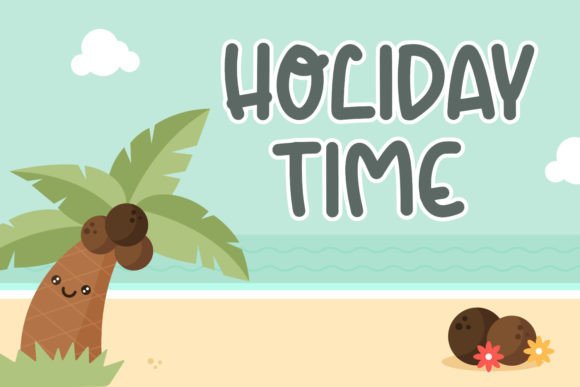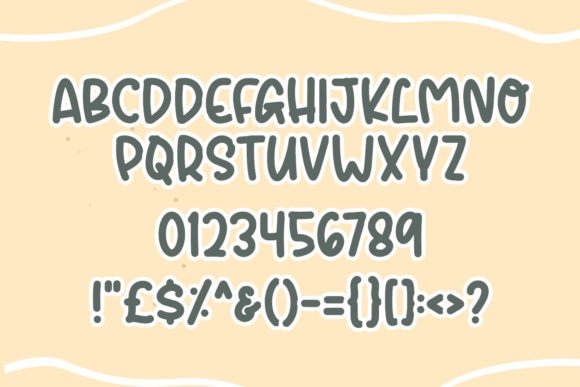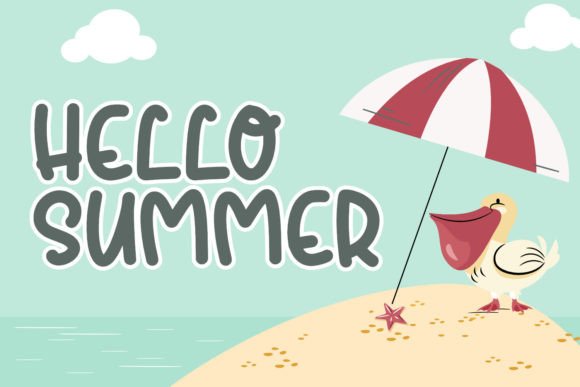
Introduction to Loving Beach Font
Loving Beach is a cool and fresh handwritten sans serif font.
With its cheerful vibe, this typeface is suitable for all your summertime designs .
Key Features of Loving Beach Font
Why Choose Loving Beach Font?